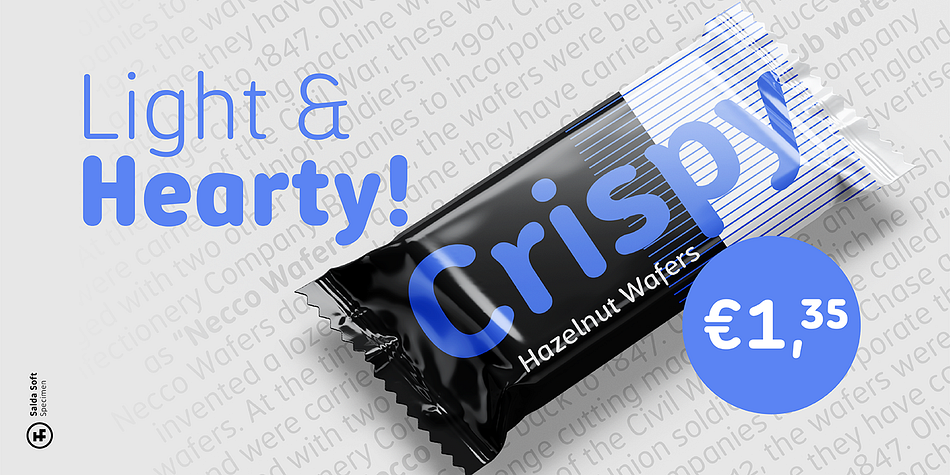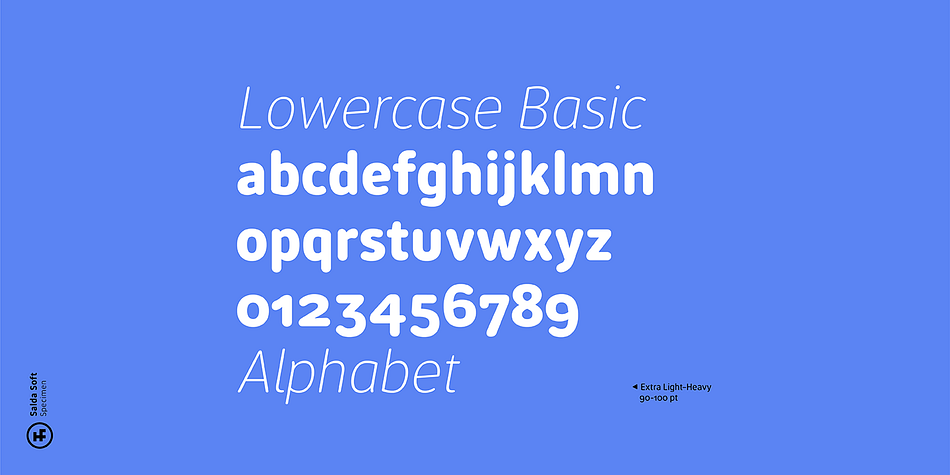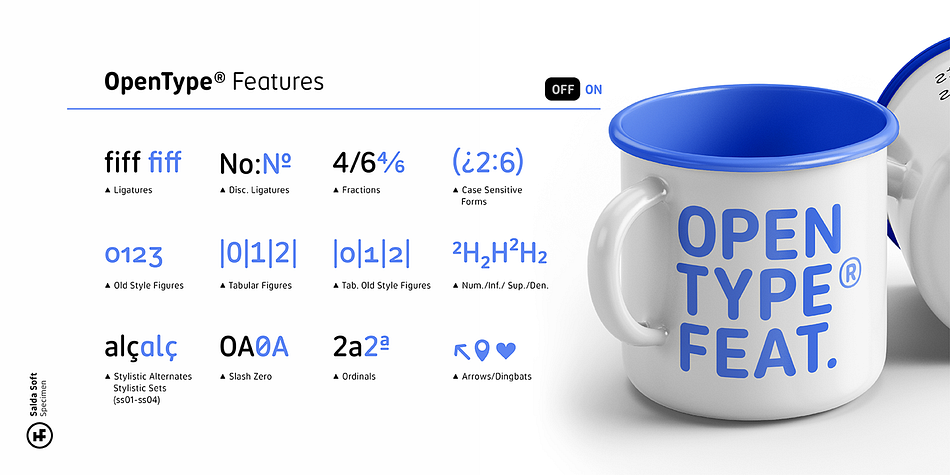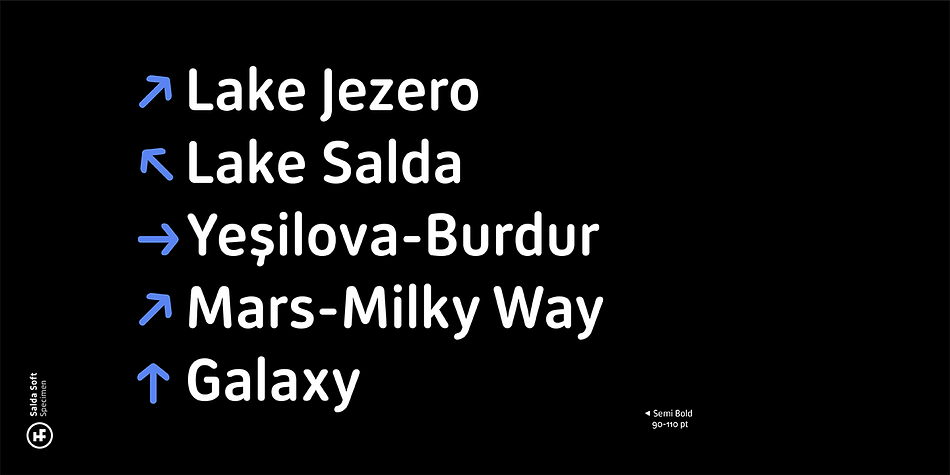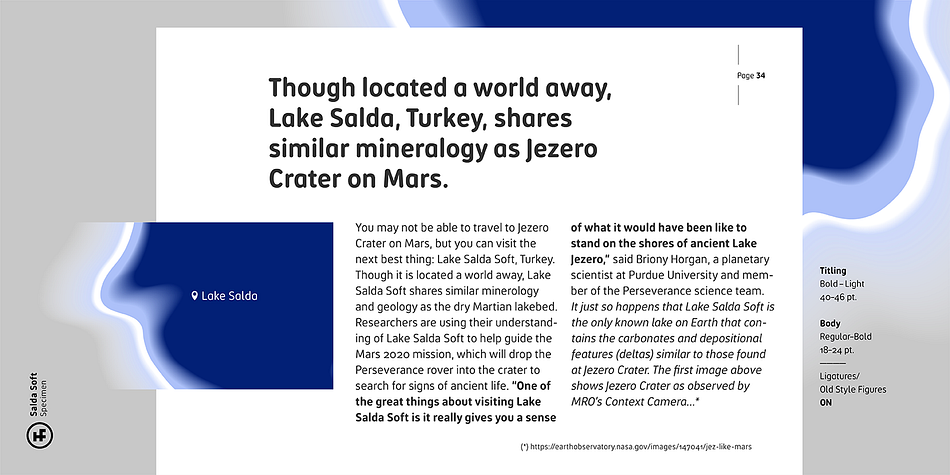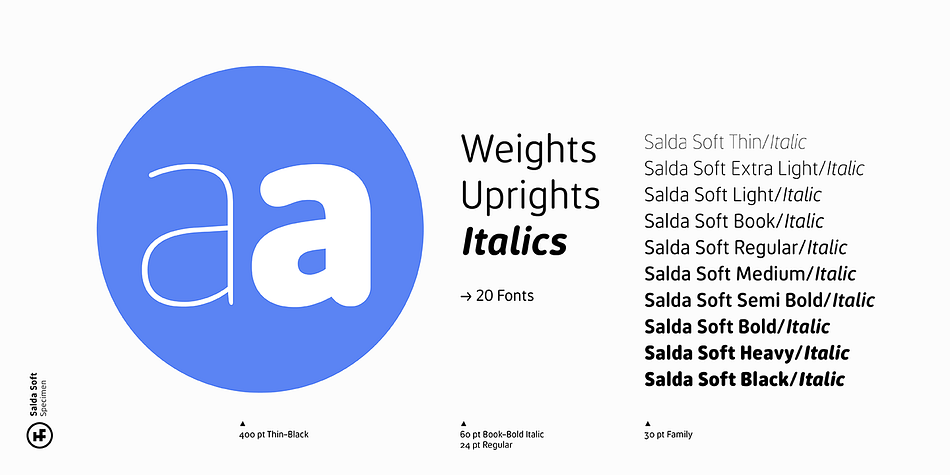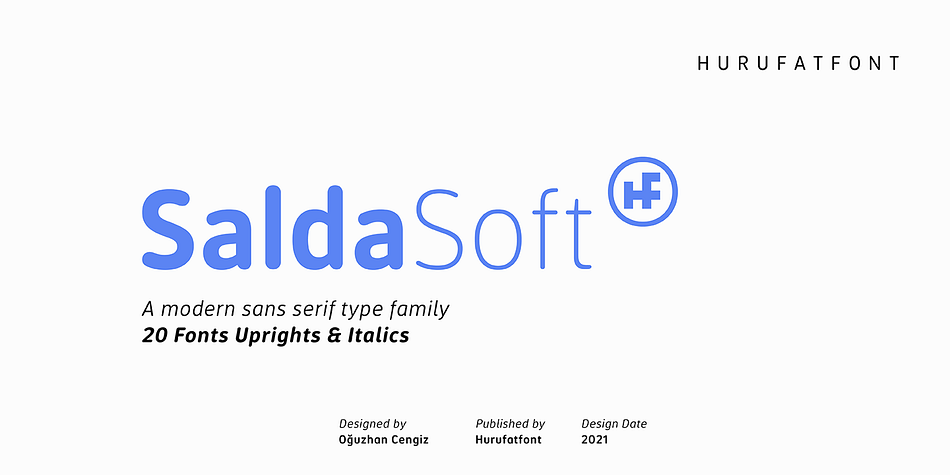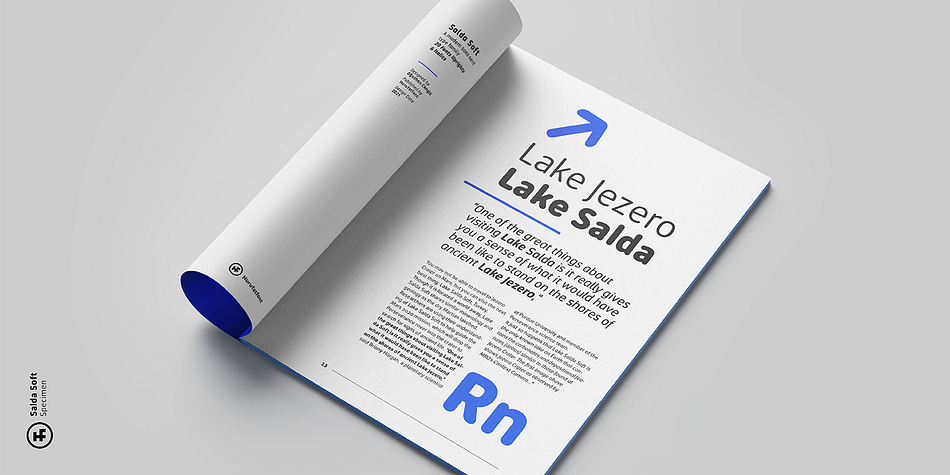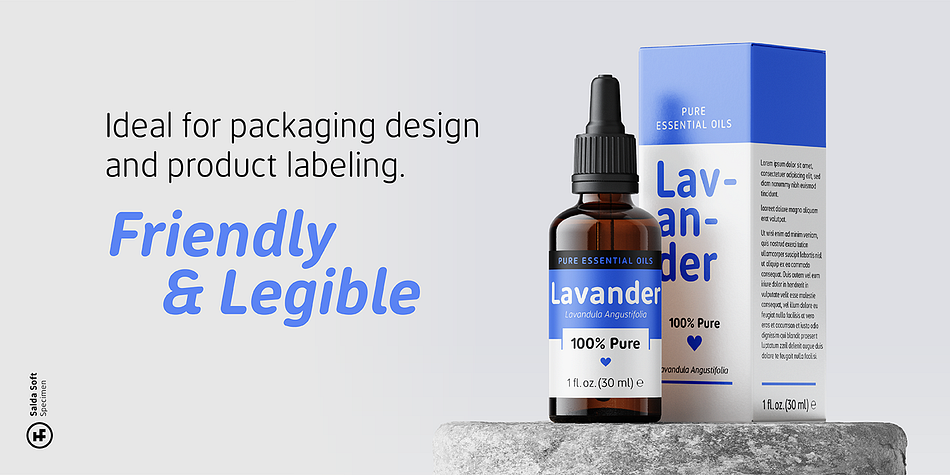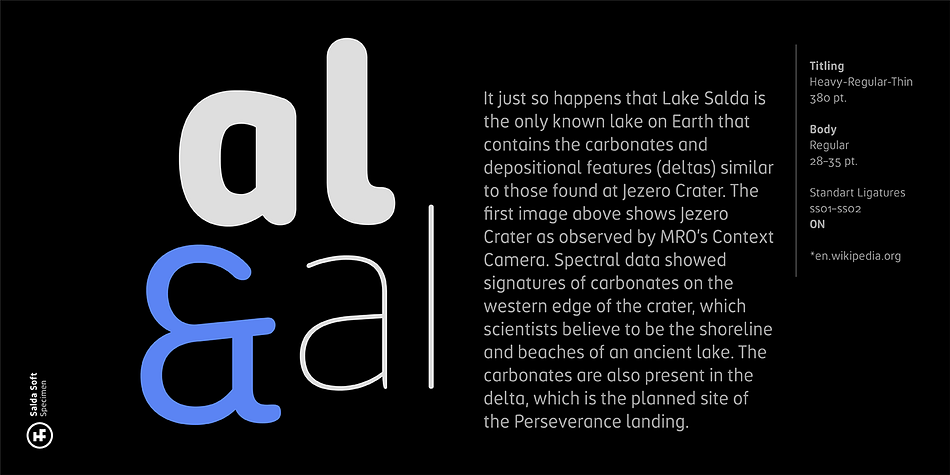
Designed by Oğuzhan Cengiz, Salda Soft is a sans serif font family. This typeface has twenty styles and was published by Hurufatfont Type Foundry.
Salda Soft; It is a modern sans serif family that blends old and new generation sans serif fonts in the same body. It has a wide usage area with its light narrow structure, soft and clean lines, humanist touches. It provides clean and smooth visuals in vertical screens, mobile applications and block texts.
It consists of a total of 20 styles. Ideal for all kinds of editorial design, packaging, corporate identity, brand, application, web and desktop.